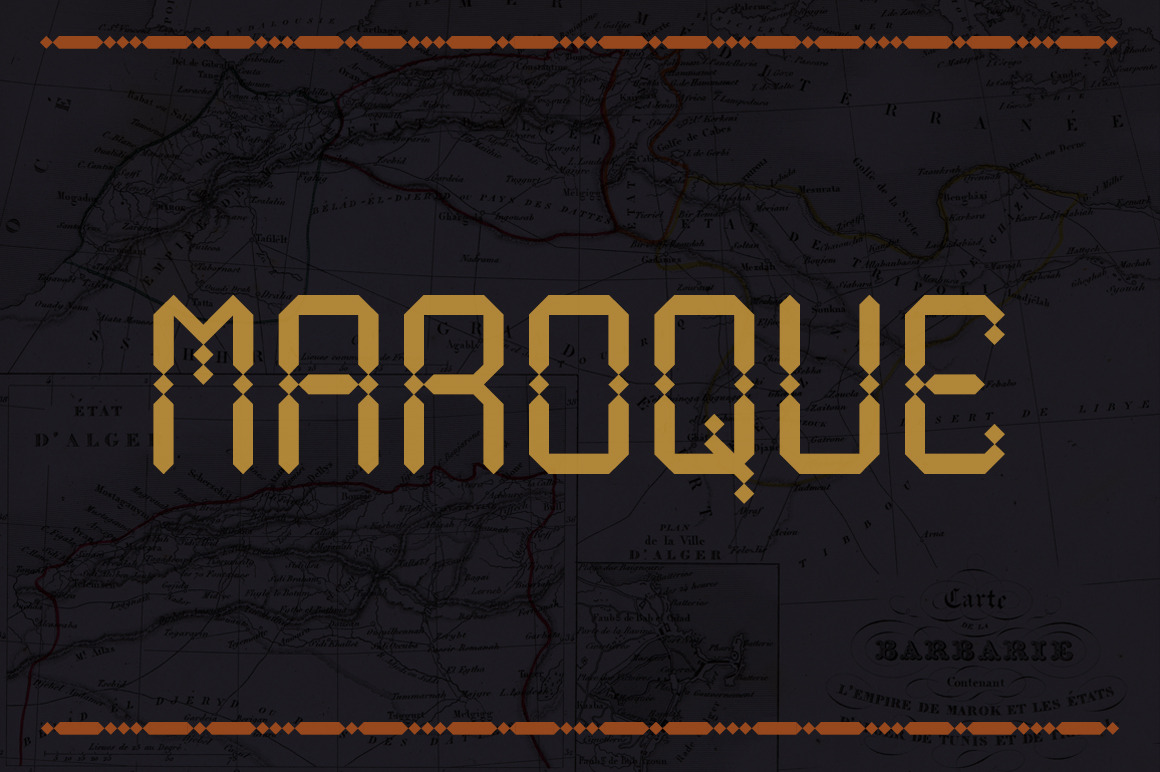
Maroque Font
Maroque is a geometric font inspired by the forms and pattern motifs found in Moroccan carpets, artwork and architecture. The pattern motifs most specifically associated with this font design are those found in the textiles of the Maghreb or Berber people of North Africa, these have a kind of bold simplicity that appears decorative, detailed and grid-based.